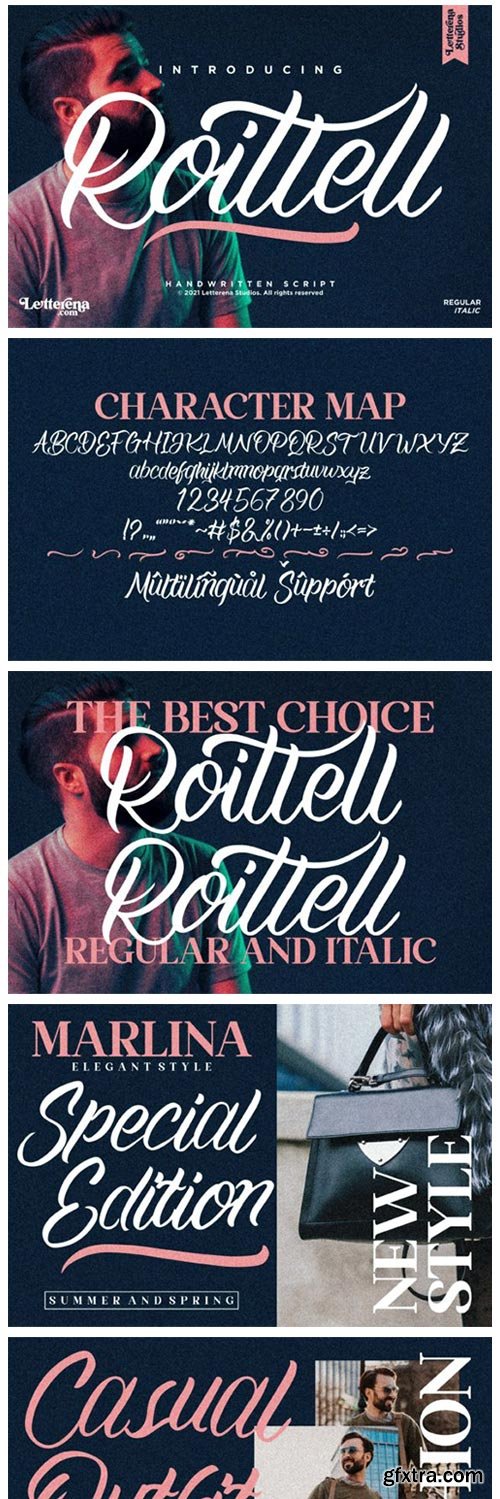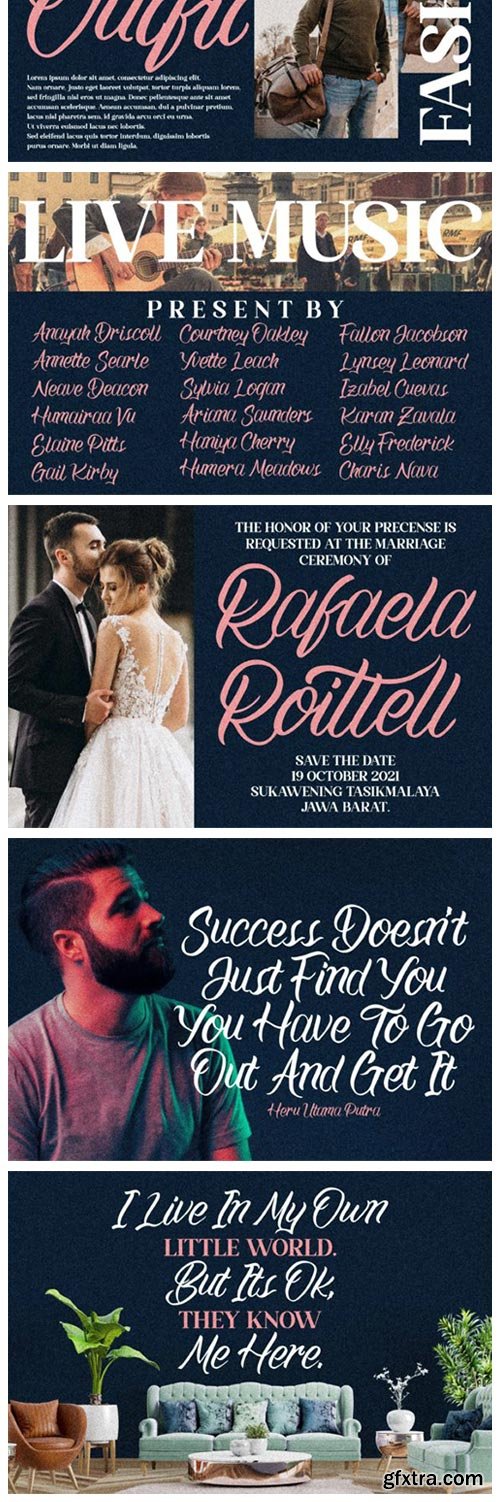
Roittell Font
Roittell is an assertive and cursive handwritten font. This gentle font will look gorgeous on a variety of design ideas. It will add a joyful and romantic touch to each of your projects!
Roittell Font
Roittell is an assertive and cursive handwritten font. This gentle font will look gorgeous on a variety of design ideas. It will add a joyful and romantic touch to each of your projects!